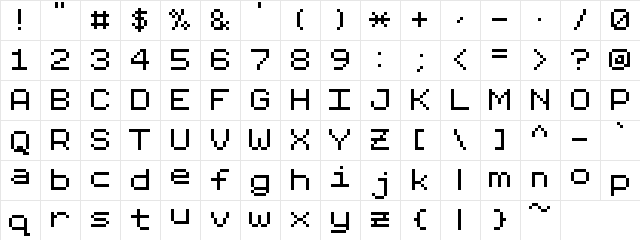
JumpStandard JumpStandard
Design Context for JumpStandard Typeface
JumpStandard is a composed and adaptable typeface that performs quietly and consistently across a wide range of design contexts.